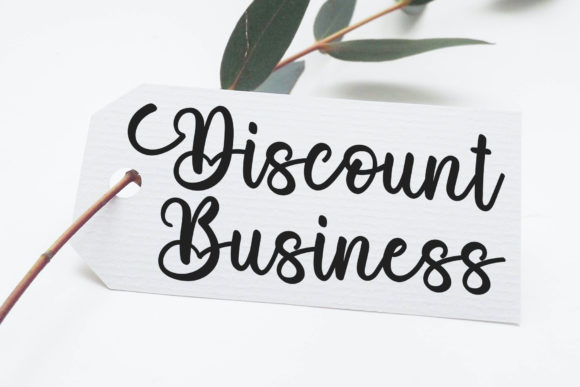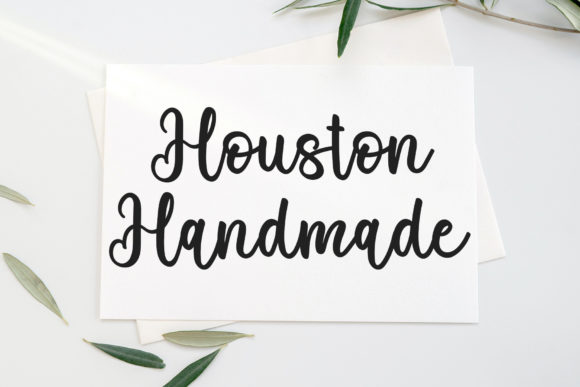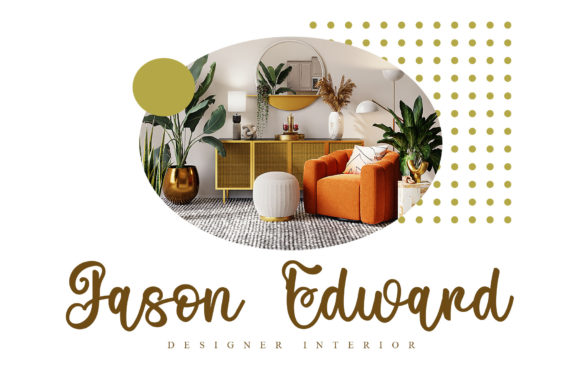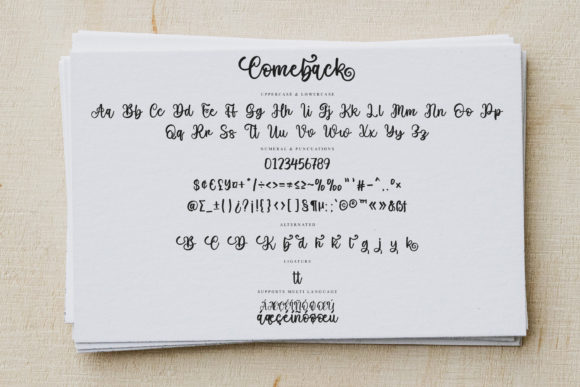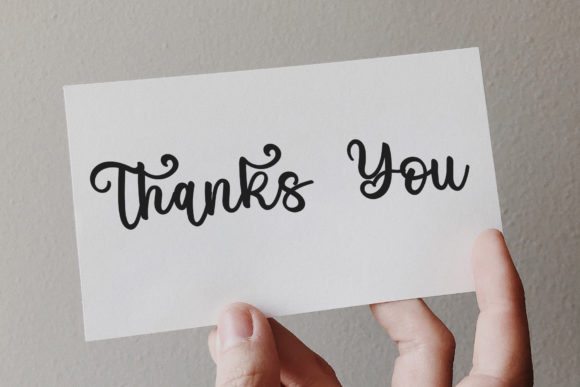
When Inspiration Strikes: Unleashing the Power of the Comeback Font
Have you ever stared at a blank page, waiting for the perfect font to spark your creativity? That’s exactly what happened to me the other day. I was working on a fashion branding project, and I needed a font that would capture the essence of style and elegance. That’s when I discovered the Comeback Font – a beautiful and whimsical script font that changed everything.
With its smooth curves and effortless charm, the Comeback Font is perfect for fashion branding, editorial designs, and any project that requires a touch of sophistication. As a designer, you’ll love how easily you can add this font to your projects and see the results transform before your eyes. Plus, with its PUA encoding, you’ll have access to all the amazing glyphs and ligatures that will take your designs to the next level.
Comeback Font Key Features
- Unique Characteristics: This font features a unique blend of modern and vintage elements, with subtle flair and flair-inspired strokes, making it perfect for creative and artistic projects.
Designer Review: Comeback Font
Overall, I think the Comeback Font is an interesting and versatile font that has some great qualities, but also some areas for improvement.
- Comeback Font is highly legible, even at small font sizes, making it perfect for body text.
- The font’s irregularities and imperfections give it a unique, hand-drawn feel that adds character to designs.
- The font’s extensive language support makes it a great option for global brands and companies.
- The font’s unique feel can sometimes come across as inconsistent or even messy, which may not be suitable for all design styles.
- The font’s irregularities can make it difficult to pair with other fonts, which may limit its versatility in certain designs.
- The font’s extensive language support also means it may not be optimized for every language, which can lead to rendering issues in certain cases.
Overall, I think the Comeback Font is a solid option for designers looking for a unique and legible font, but it may not be the best choice for every project.
Getting the Most Out of Comeback Font
To get the most out of Comeback Font, use it in bold and italic styles to add emphasis to your text.
Experiment with different font sizes and colors to create visually appealing designs.
Use Comeback Font for:
- Brand logos and identities
- Marketing materials such as flyers and brochures
- Website headers and footers
Alternatives to Comeback Font for Designers
Great Vibes is a modern script font that can be used for a variety of purposes, including invitations, quotes, and titles. It is perfect for creating a fun and playful atmosphere in your designs.
Compared to Comeback Font, Great Vibes has a more elegant and refined feel, making it suitable for a wider range of applications.
Pacifico is a beautiful, elegant script font that is reminiscent of handwritten text. It is ideal for creating a sophisticated and luxurious look in your designs.
Can I customize the Comeback Font for my specific design project?
Yes, Comeback Font is a highly customizable font that can be modified to suit your specific design needs. You can adjust the font’s weight, style, and size to create a unique look for your project. Additionally, you can also use font editing software to create custom variations of the font.